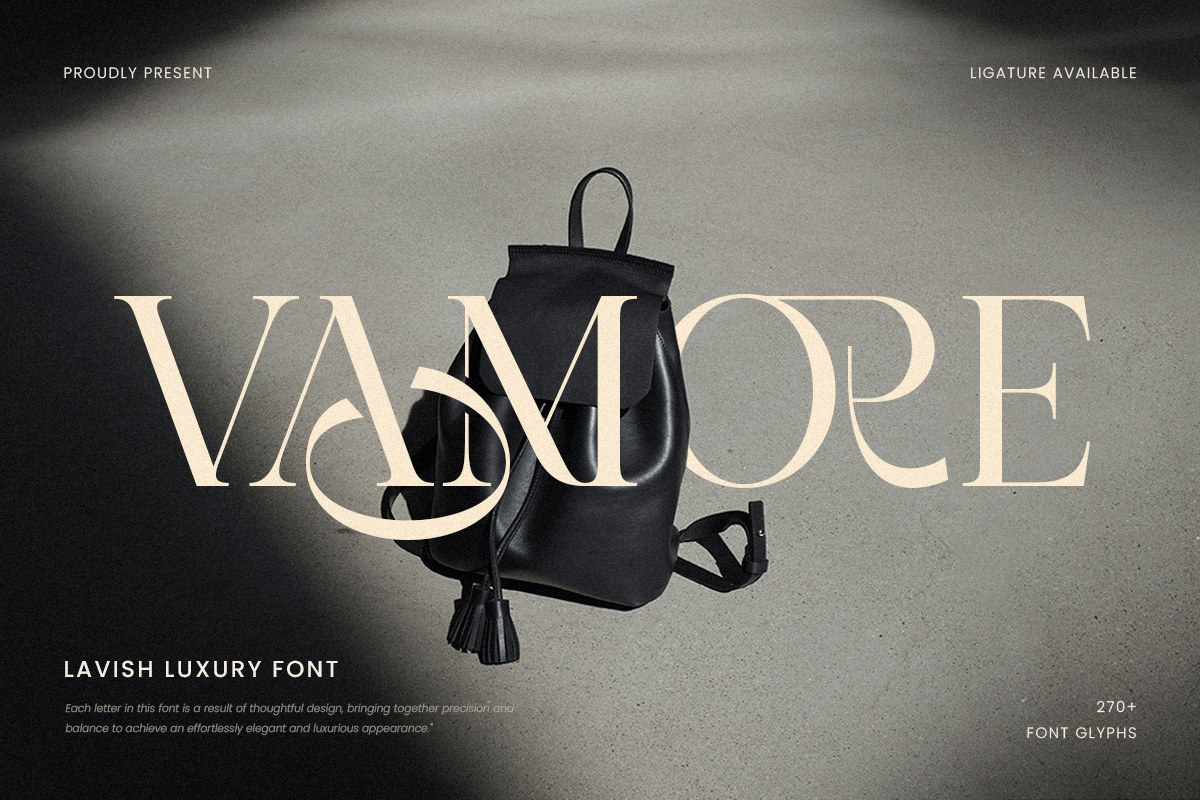
Vamore
-Lavish Luxury FontVamore - Lavish Luxury Font
Vamore is a lavish luxury font that redefines elegance. With its opulent design and intricate details, it is tailored for those who want to make a bold and exclusive statement in their designs.
Ideal for Elite Projects
Perfect for branding, high-end packaging, invitations, and editorial layouts, Vamore elevates every project with its refined and sophisticated touch. It’s a font that speaks to luxury and exclusivity.
Timeless Elegance in Every Detail
Vamore blends classic luxury with modern trends, offering a versatile and captivating typeface. Its stylish characters and lavish feel make it an essential choice for upscale design projects.
Vamore Lavish Luxury Font Features:
Alternates & Ligature Characters Ready